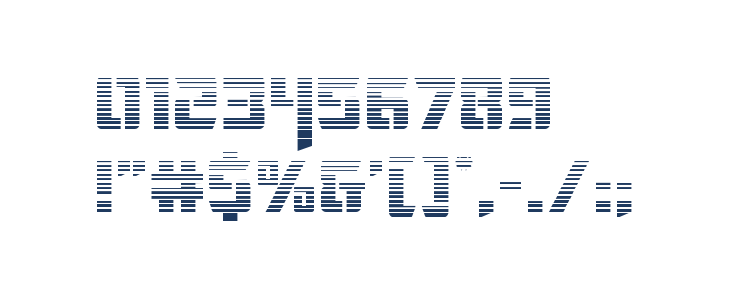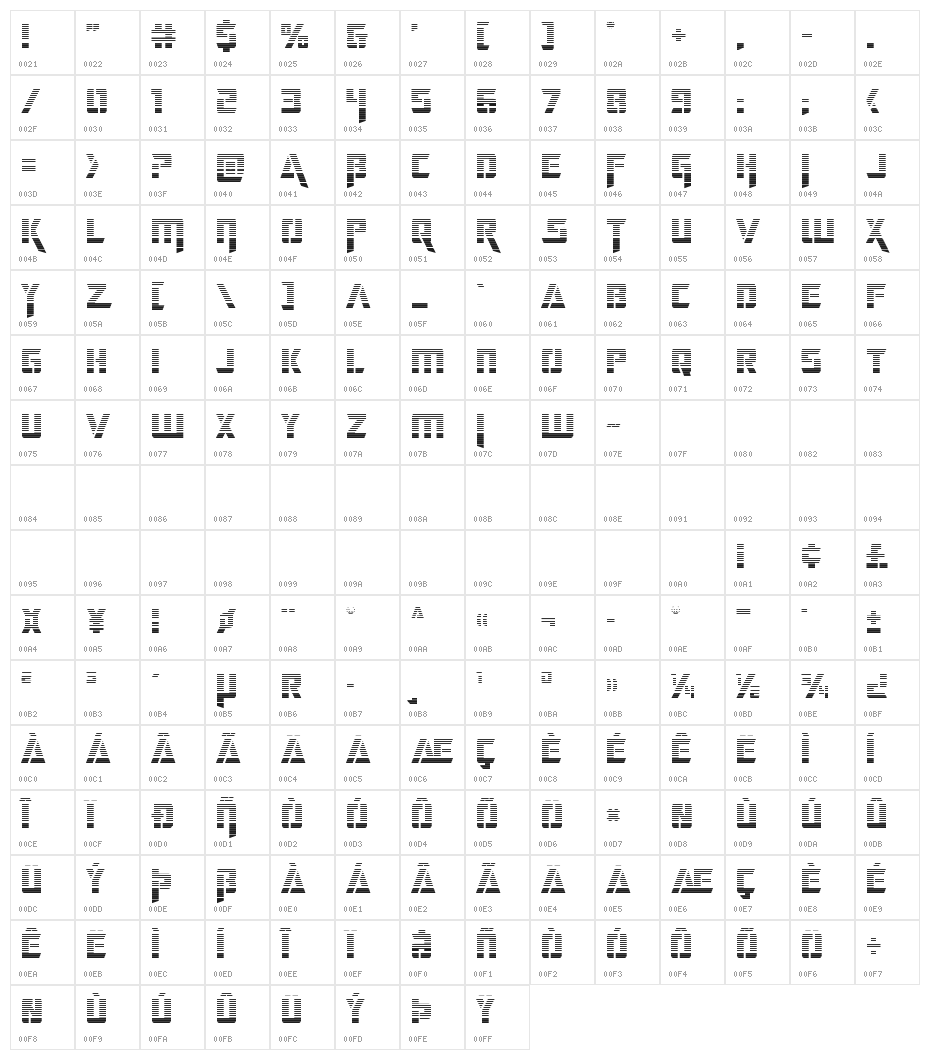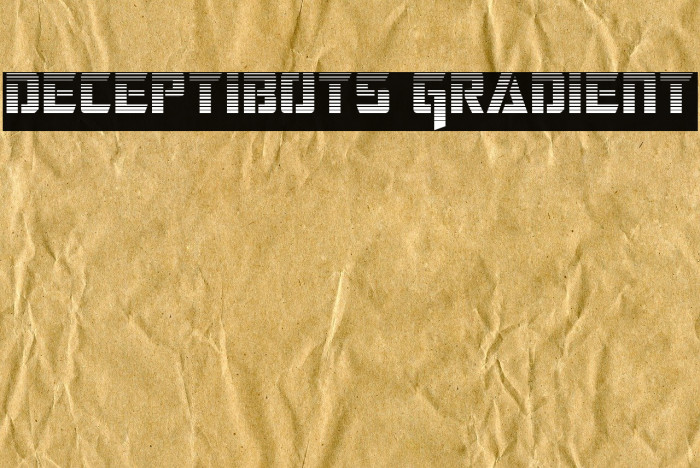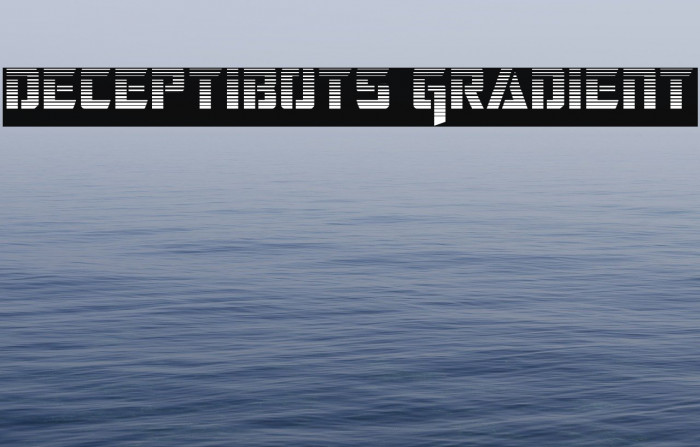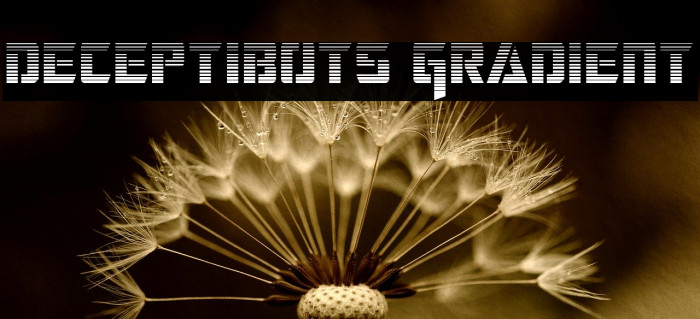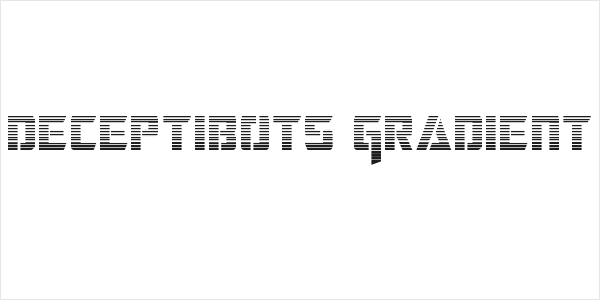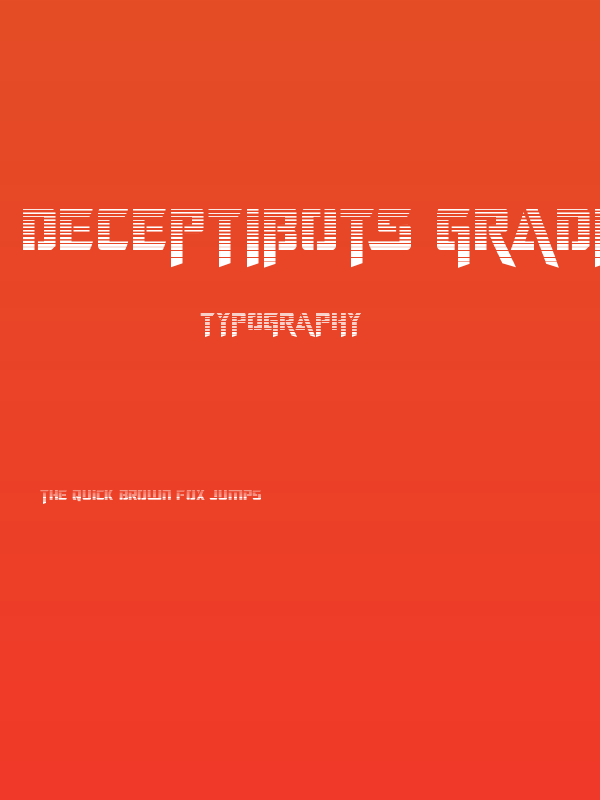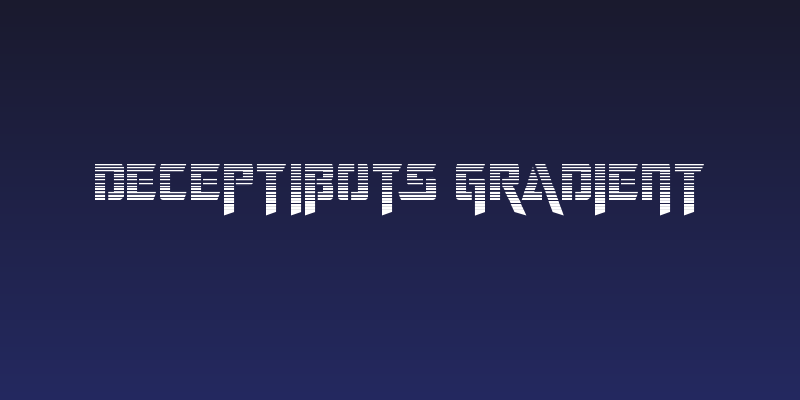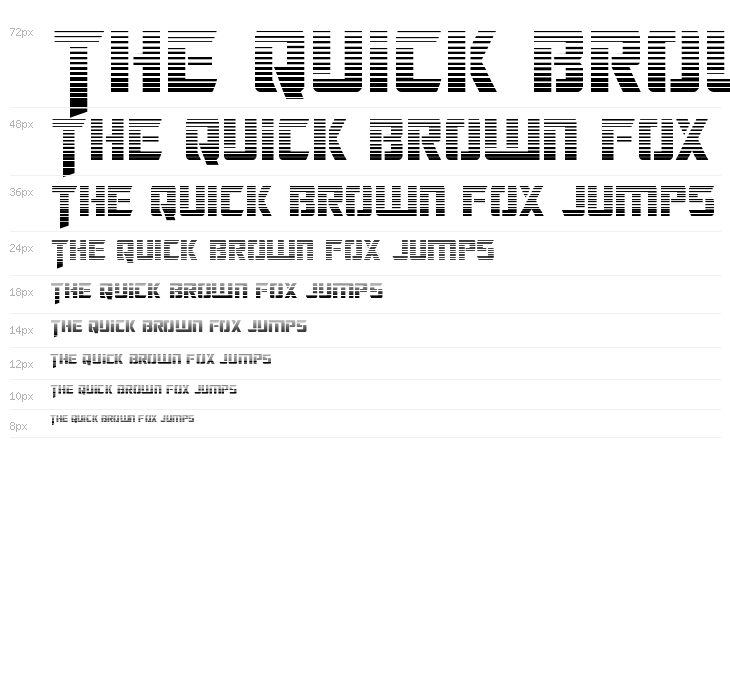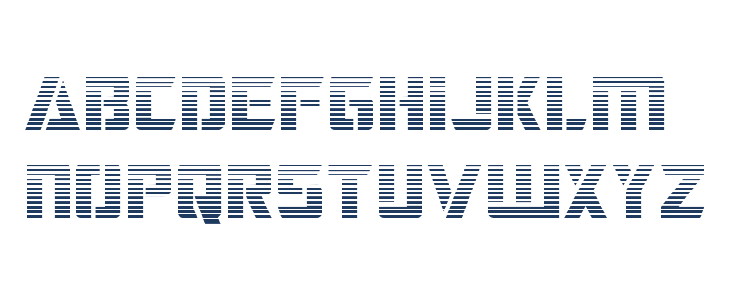
Deceptibots Gradient Font
Deceptibots Gradient Description
This font features a futuristic and bold design with a distinct gradient effect that gives the characters a three-dimensional appearance. The uppercase and lowercase letters are constructed with horizontal lines that create a sense of movement and depth. The geometric shapes and sharp angles contribute to its modern and edgy aesthetic. The numbers and special characters maintain the same stylistic elements, ensuring consistency across all glyphs. This font is ideal for projects that require a strong visual impact and a contemporary feel.
| Proposed Projects | Ideal for sci-fi themed projects, video game titles, tech branding, and futuristic posters. |